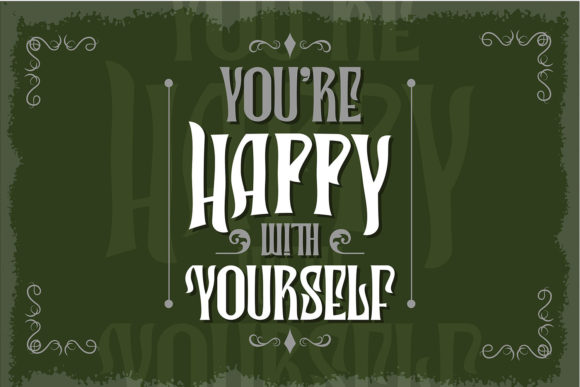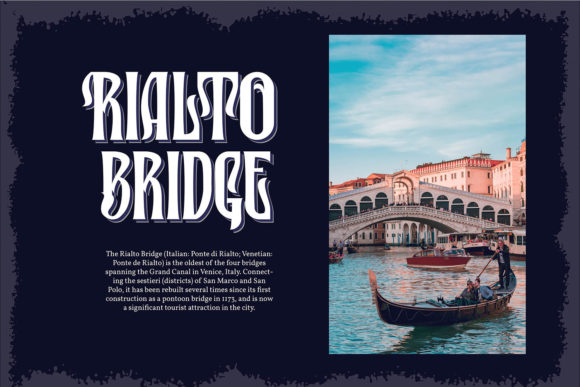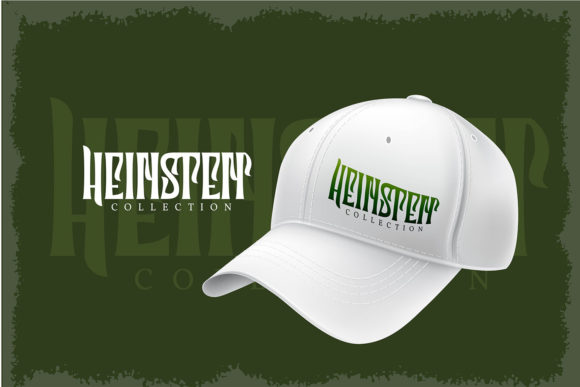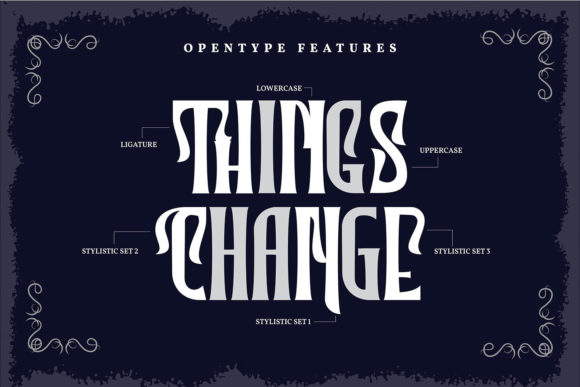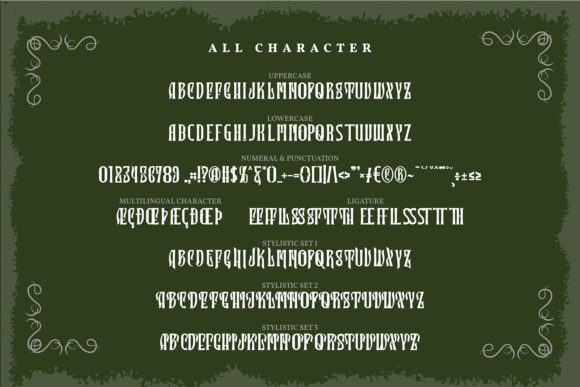
Introduction to Linetown Font
Linetown is a cool, bold and vintage styled display font.
Expertly designed to make your creation look out of this world, this font will look gorgeous on a variety of ideas .
Key Features of Linetown Font
Why Choose Linetown Font?
Linetown Font offers exceptional quality and versatility, making it a valuable addition to your design toolkit. Whether you’re creating for personal projects or commercial use, Linetown Font delivers professional results.